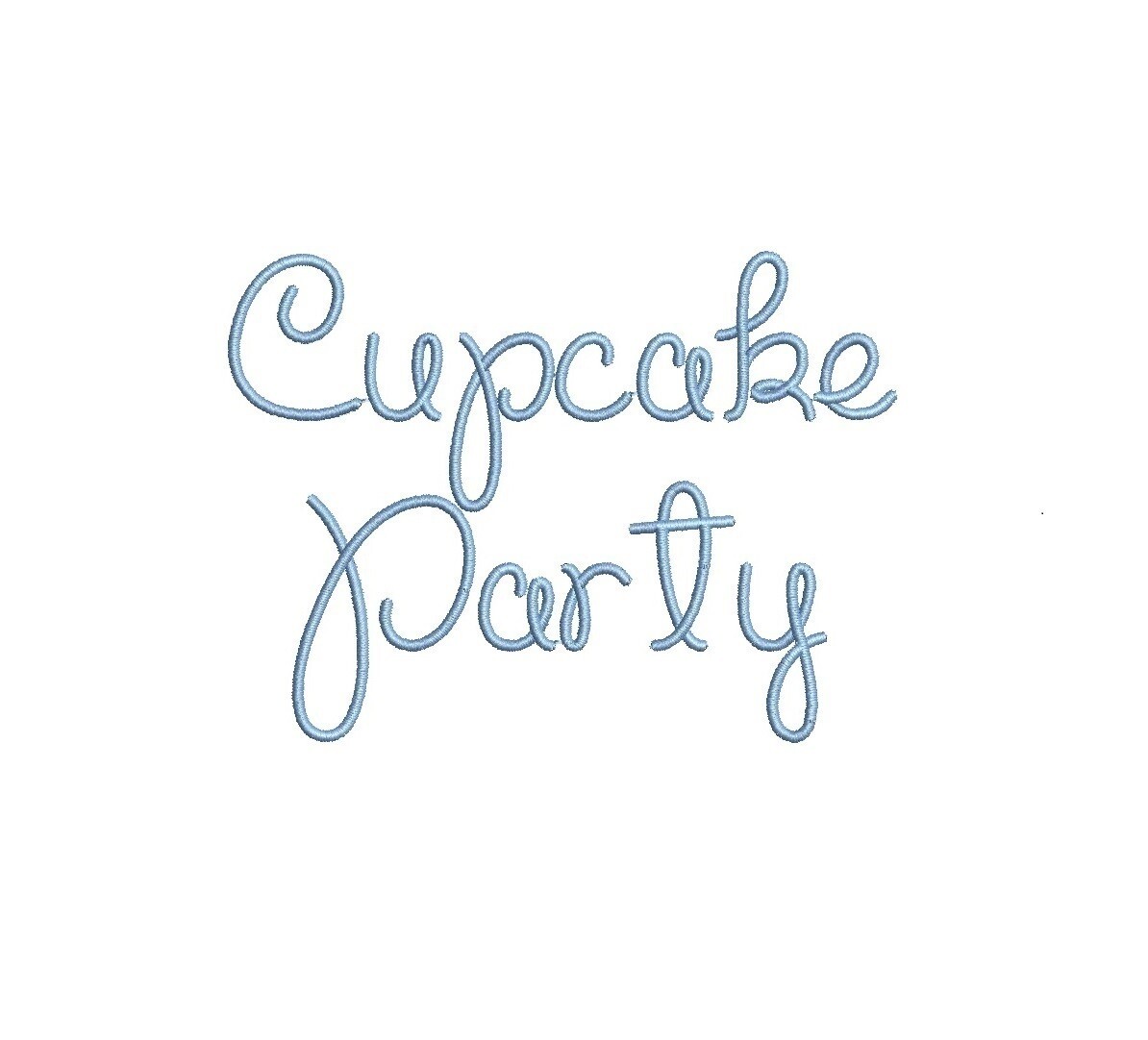
Get ready to add a delightful touch to your designs with Cupcake Party Regular ESA font. This charming typeface is perfect for all your creative projects, from invitations to party decorations. Crafted with precision and care, it ensures a seamless design experience. Compatible with Wilcom Studio e4.5.6 and Hatch 3 versions and up, this versatile font guarantees smooth embroidery creation. Let your imagination run wild as you create adorable monograms, cute text, and more. Don't miss out on the fun; grab Cupcake Party Regular ESA font now and infuse sweetness into your masterpieces. Elevate your designs with this delightful treat!